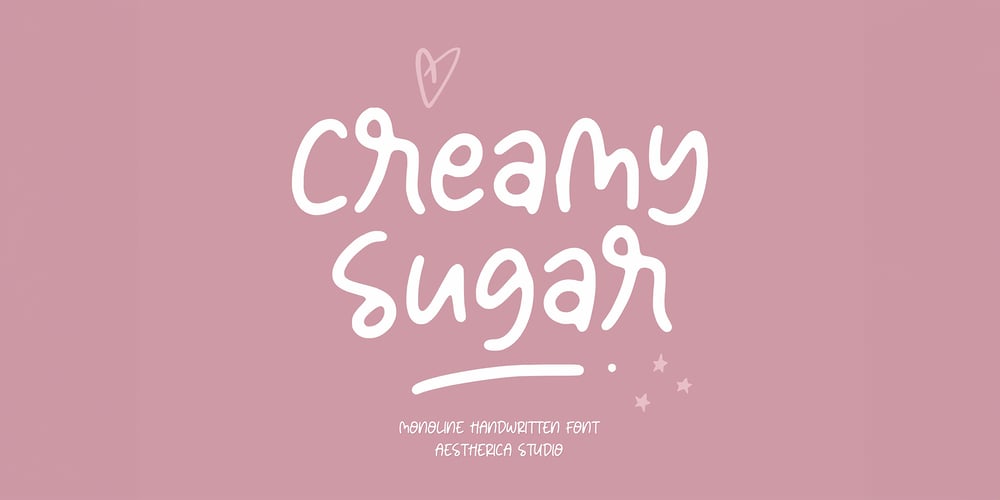
Creamy Sugar Font Family was designed by Muhammad Fathurrohman and published by Aestherica Studio. Creamy Sugar contains 1 styles and family package options. Creamy Sugar is a modern handwritten monoline script. This font looks natural, stylish, and perfect for any extraordinary project that requires a handwritten feel. Its versatile style looks lovely on wedding invitations, thank you cards, quotes, greeting cards, logos, business cards, and every other design which needs a customized touch.